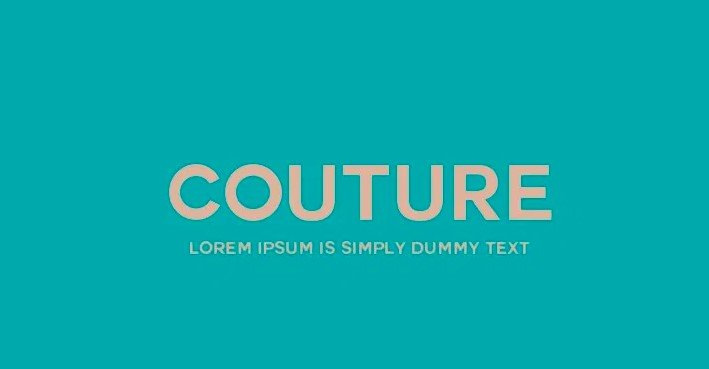
We are excited to present the Couture Sans Serif Font, designed by Chase Babb. This font boasts incredible features that make it suitable for both commercial and personal projects.